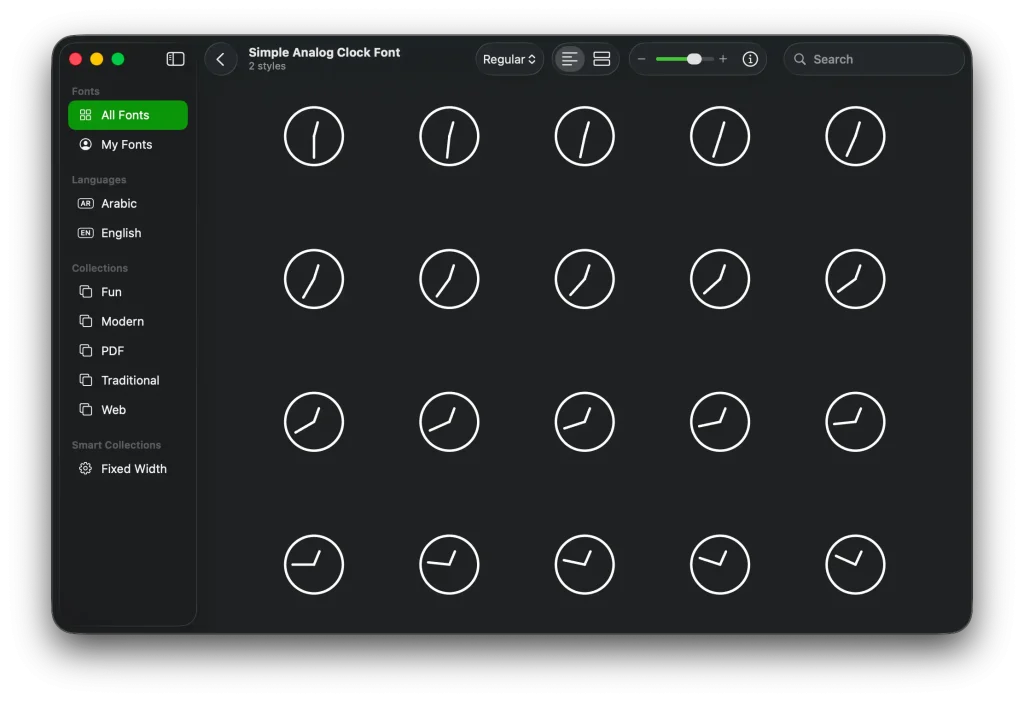
This true type font includes a glyph for all 720 minutes of an analog clock. The file features Regular styling, Bold styling, and a specific formula for calculating codepoints. The glyphs sit in the Private Use Area starting at U+E000 for structured indexing.
Key Features
- 720 Unique Glyphs (Covers every minute from 00:00 to 11:59).
- Two Weights (Includes Regular and Bold for hierarchy).
- PUA Indexing (Glyphs start at U+E000 to avoid conflicts).
- Integration Formula (Simple math to calculate the correct hex code).
Use Cases
- Smart Home Dashboards (Displaying current time dynamically).
- Educational Apps (Teaching kids how to read analog clocks).
- Lock Screen Widgets (Minimalist time displays).